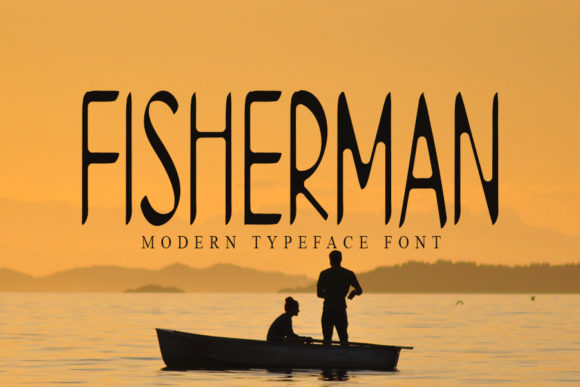
Introducing Fisherman Font, the captivating sans serif font that will transport you to the serene beauty of coastal living. Created by the talented ONE DESIGN, Fisherman is a tall and versatile font that seamlessly blends a modern aesthetic with a touch of rustic charm.
With its clean lines and elegant curves, Fisherman lends a sophisticated touch to your creative projects. Its tall structure creates a sense of height and grandeur, making it an ideal choice for headings, titles, and logos. The font's versatility shines through its ability to adapt effortlessly to a wide range of designs. Whether you seek a classic look for a wedding invitation or a contemporary feel for your branding, Fisherman delivers versatility like no other.
Dive into the world of Fisherman and let your creativity flourish. Its neat and simple style invites endless possibilities, making it your new go-to font for any occasion. From rustic wedding invitations to chic business cards, Fisherman promises to elevate your designs with a timeless charm.
Embrace the allure of the Fisherman Font and embark on a journey of creative exploration. Its elegant strokes will paint a picture of sophistication and charm, leaving a lasting impression on your audience. Whether you're a seasoned designer or just starting your creative journey, Fisherman will effortlessly guide you towards stunning visual masterpieces.